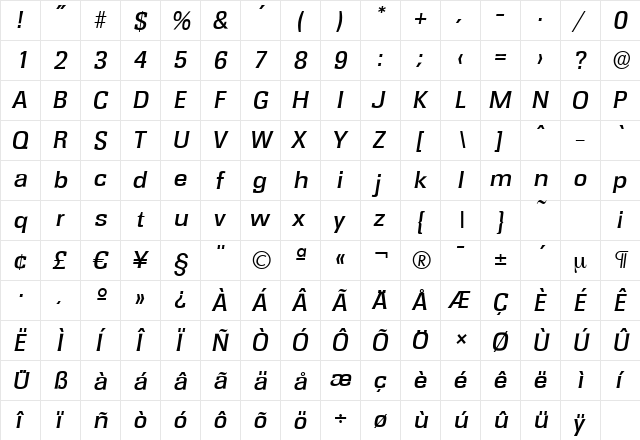
RochesterSerial-Medium Italic Font Preview
RochesterSerial-Medium Italic
RochesterSerial-Medium Italic Font Details
Design Context for RochesterSerial-Medium Typeface
RochesterSerial-Medium offers clean, dependable letterforms without strong stylistic allegiance, making it a practical choice for designers who need flexibility. The dynamic lean of this cut emphasises speed and emphasis in any layout.
Pro Tip: Try RochesterSerial-Medium for annotation and caption copy alongside an upright companion — the contrast in angle creates a dynamic but ordered typographic system.